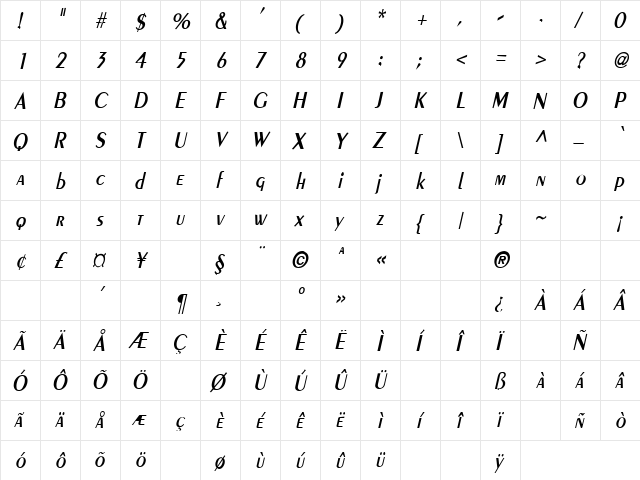
Custard Pie 3 Italic
Design Context for Custard Pie 3 Typeface
Custard Pie 3 offers clean, dependable letterforms without strong stylistic allegiance, making it a practical choice for designers who need flexibility. The slanted form adds forward momentum and visual energy.
Pro Tip: Try Custard Pie 3 for annotation and caption copy alongside an upright companion — the contrast in angle creates a dynamic but ordered typographic system.